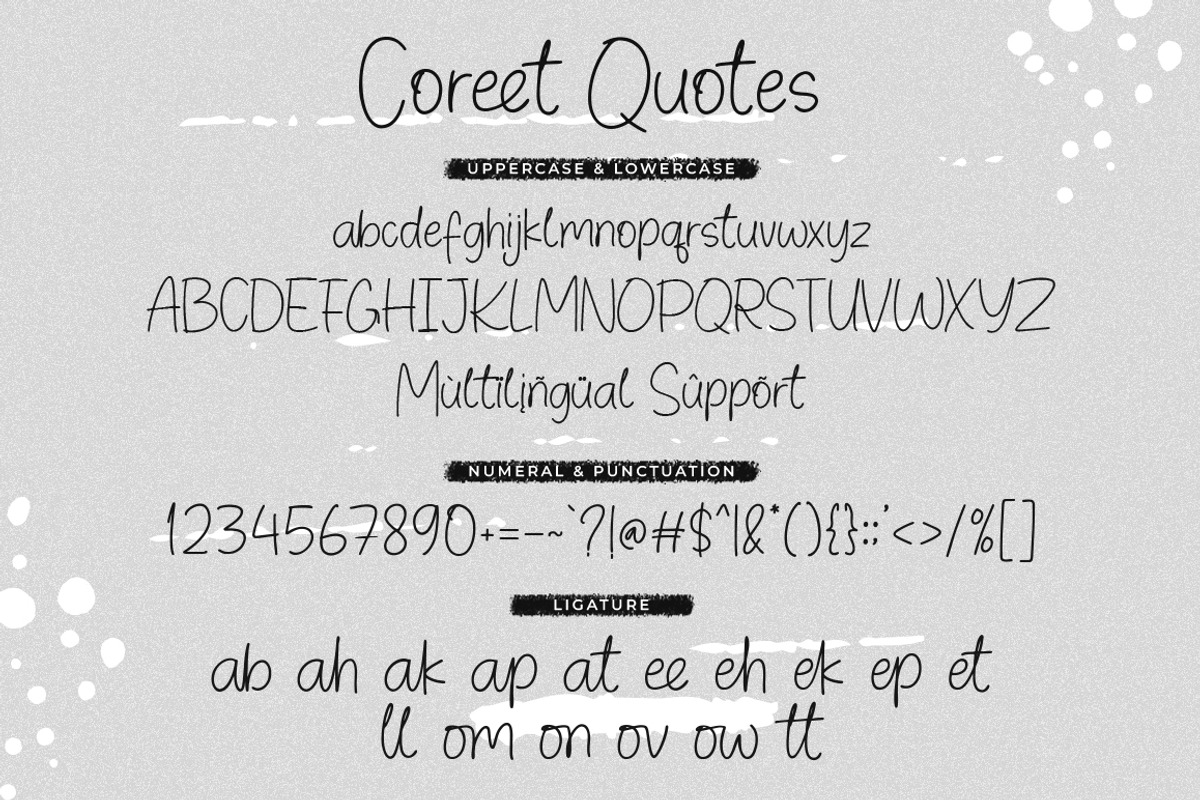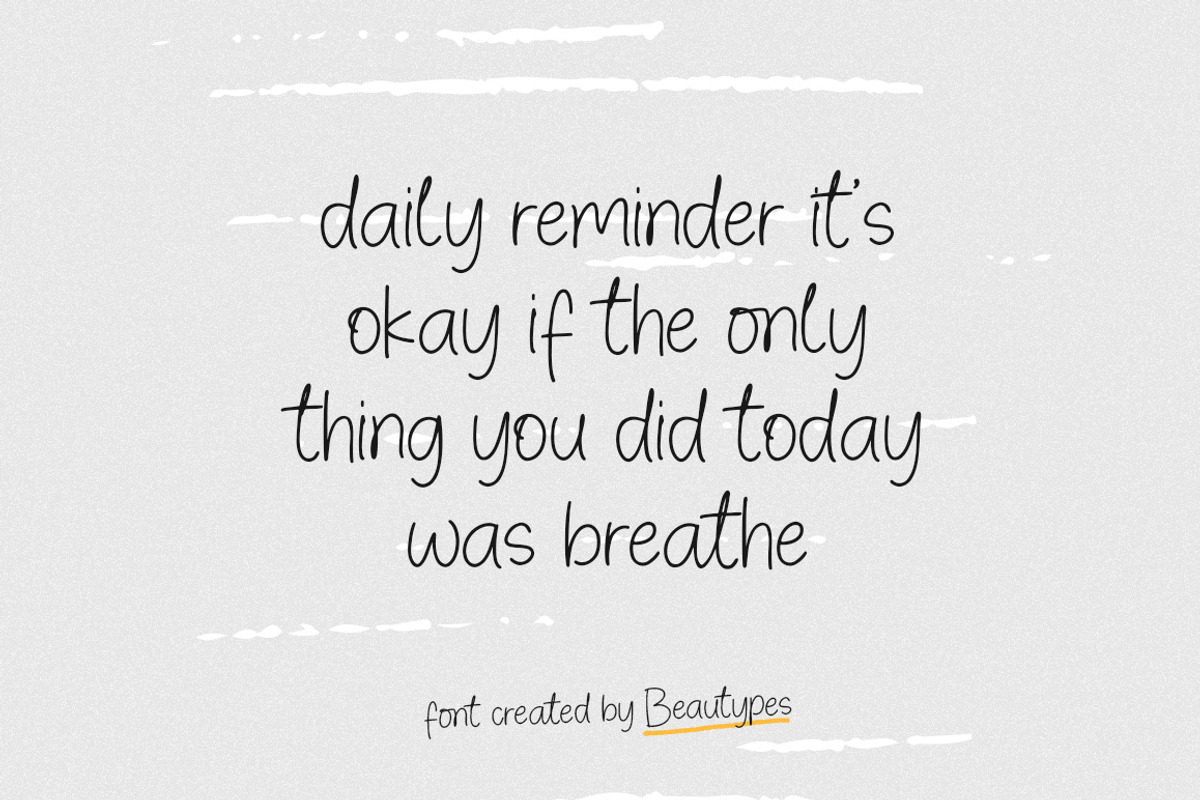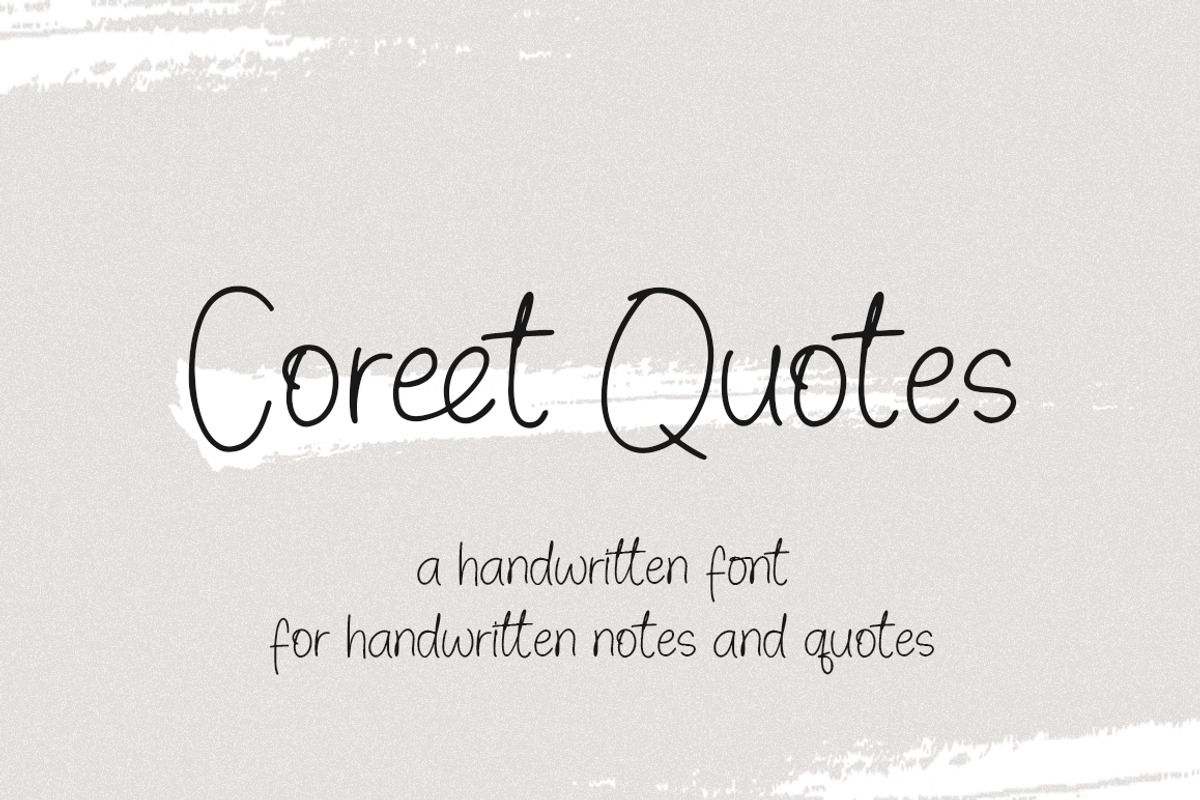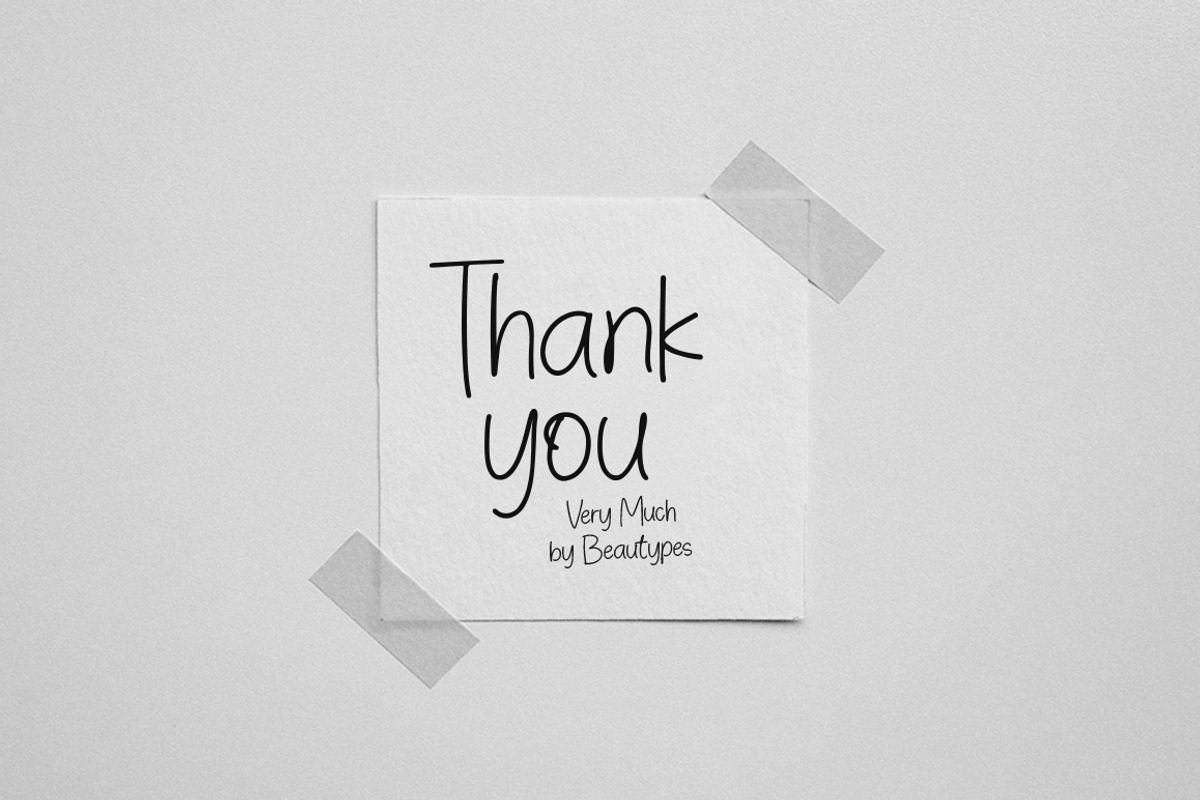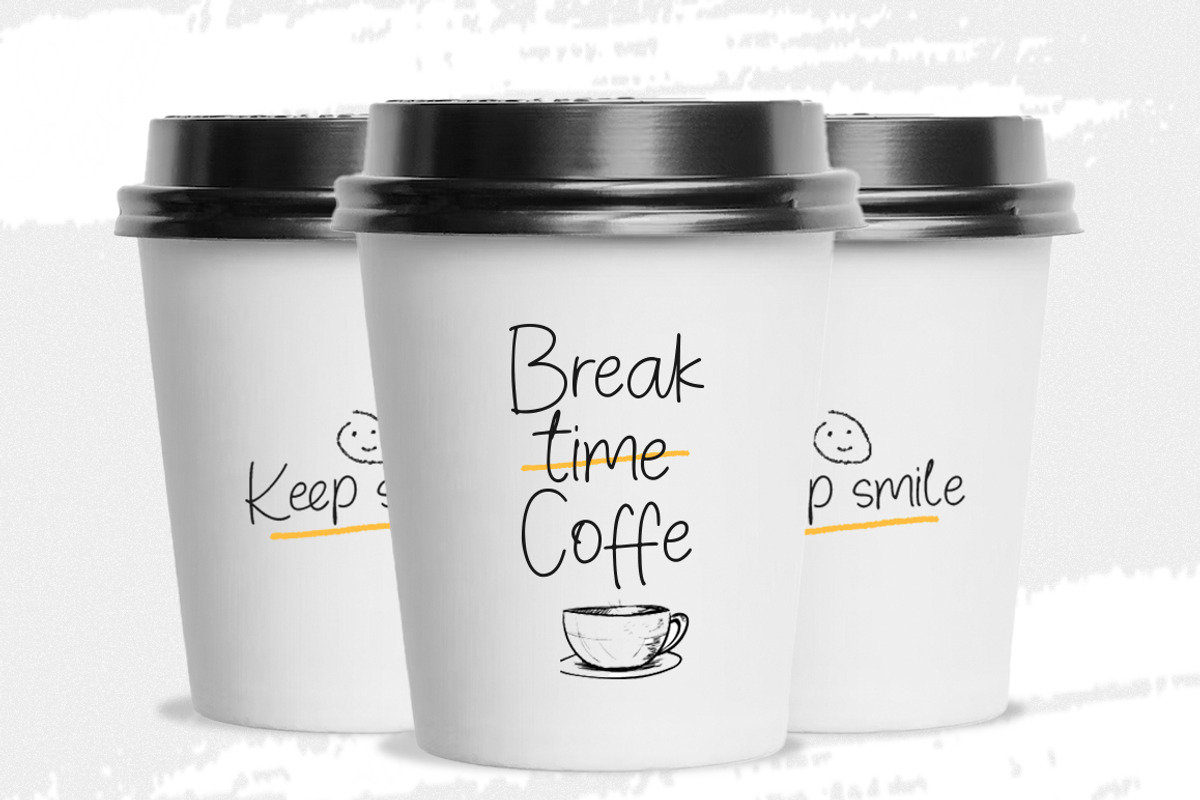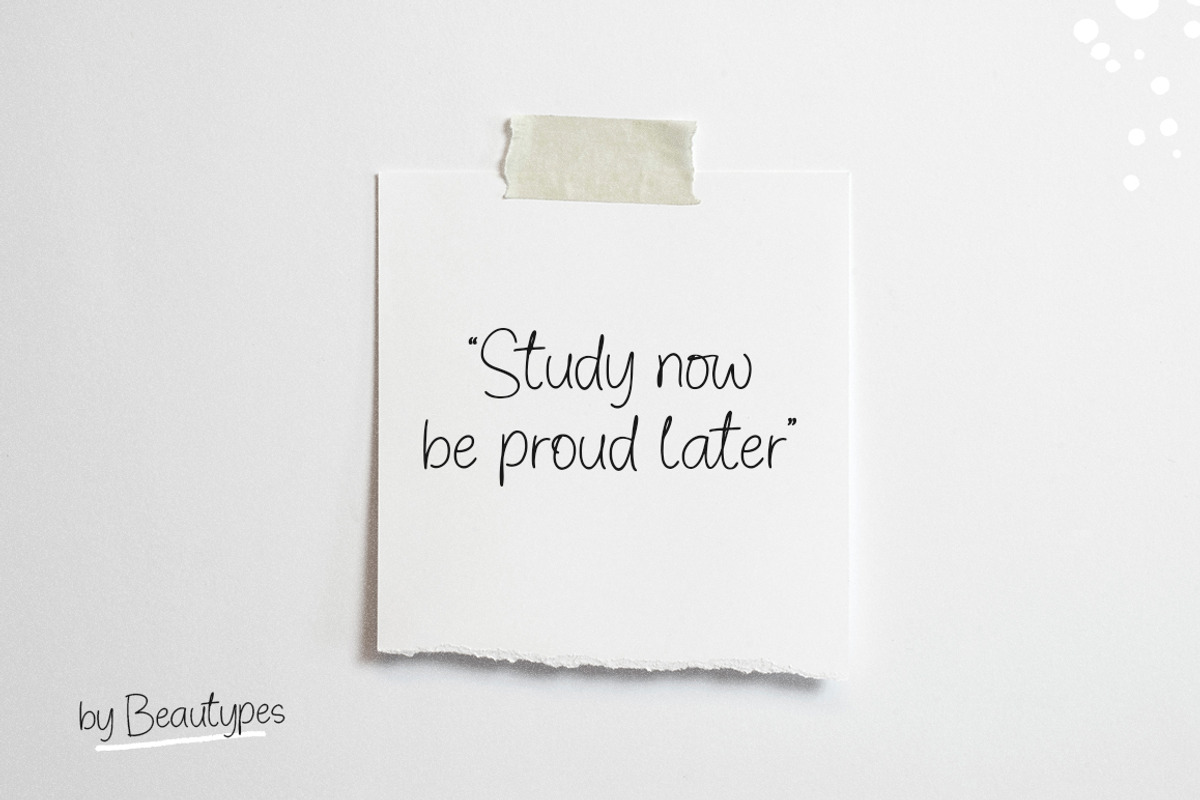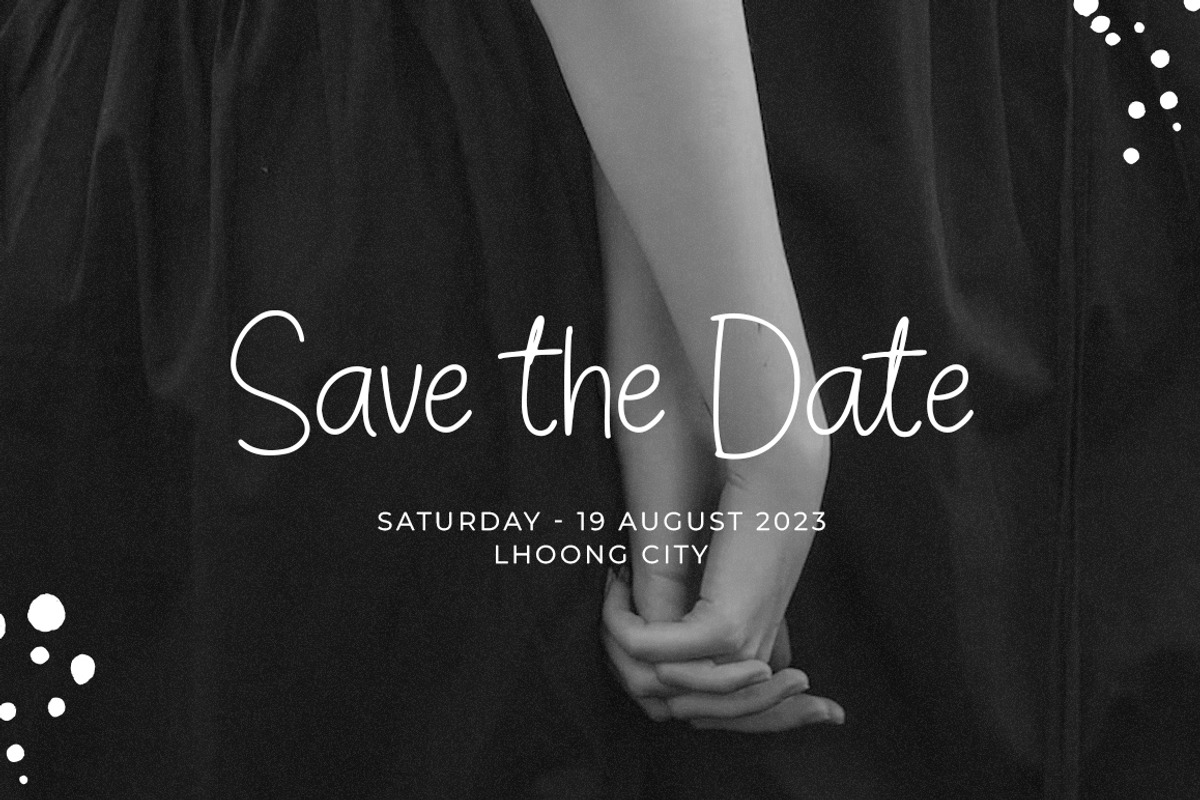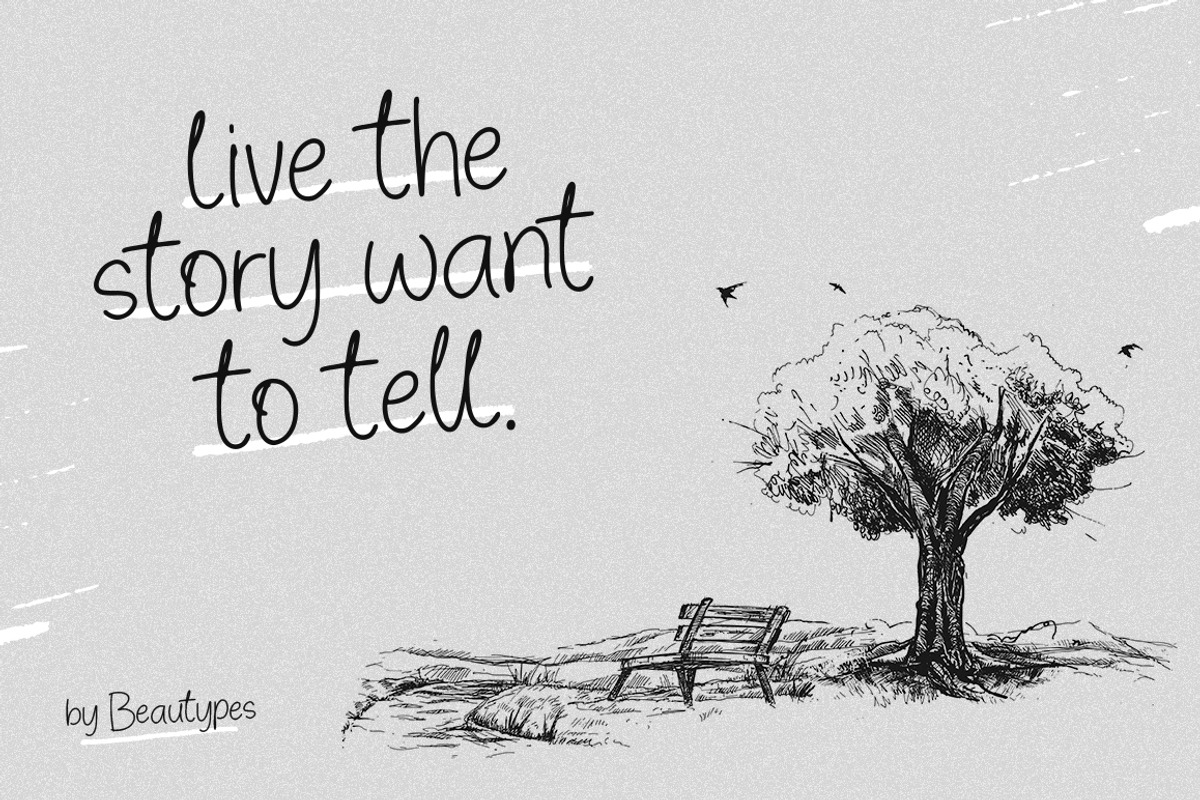
Coreet Quotes | a handwritten font
This is raw handwritten type for thematic quotes. Great for creating shareable Instagram quote posts, invitations and stationary, and loads more. This is full font, which features all uppercase and lowercase letters, numbers and punctuation, and multi-lingual